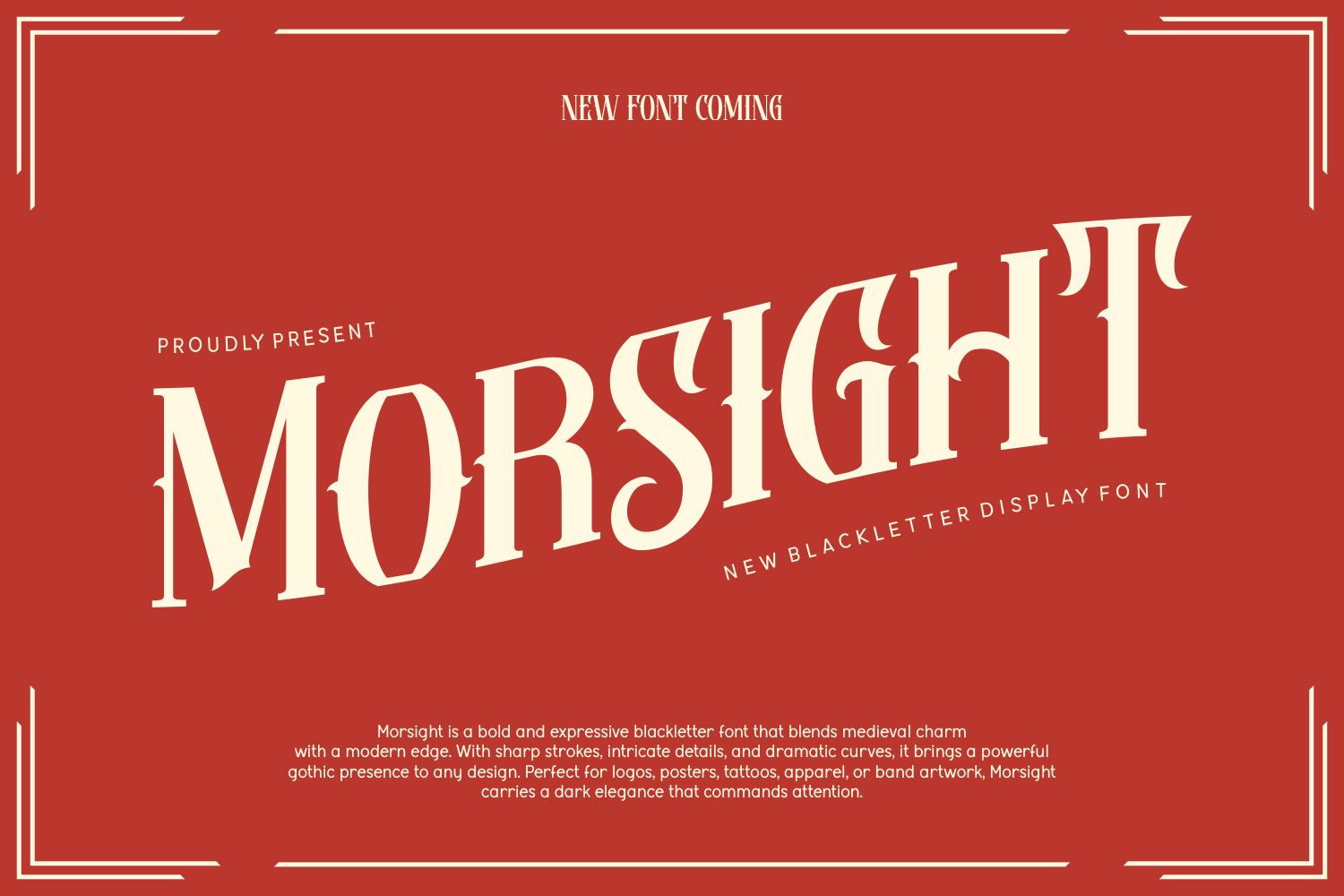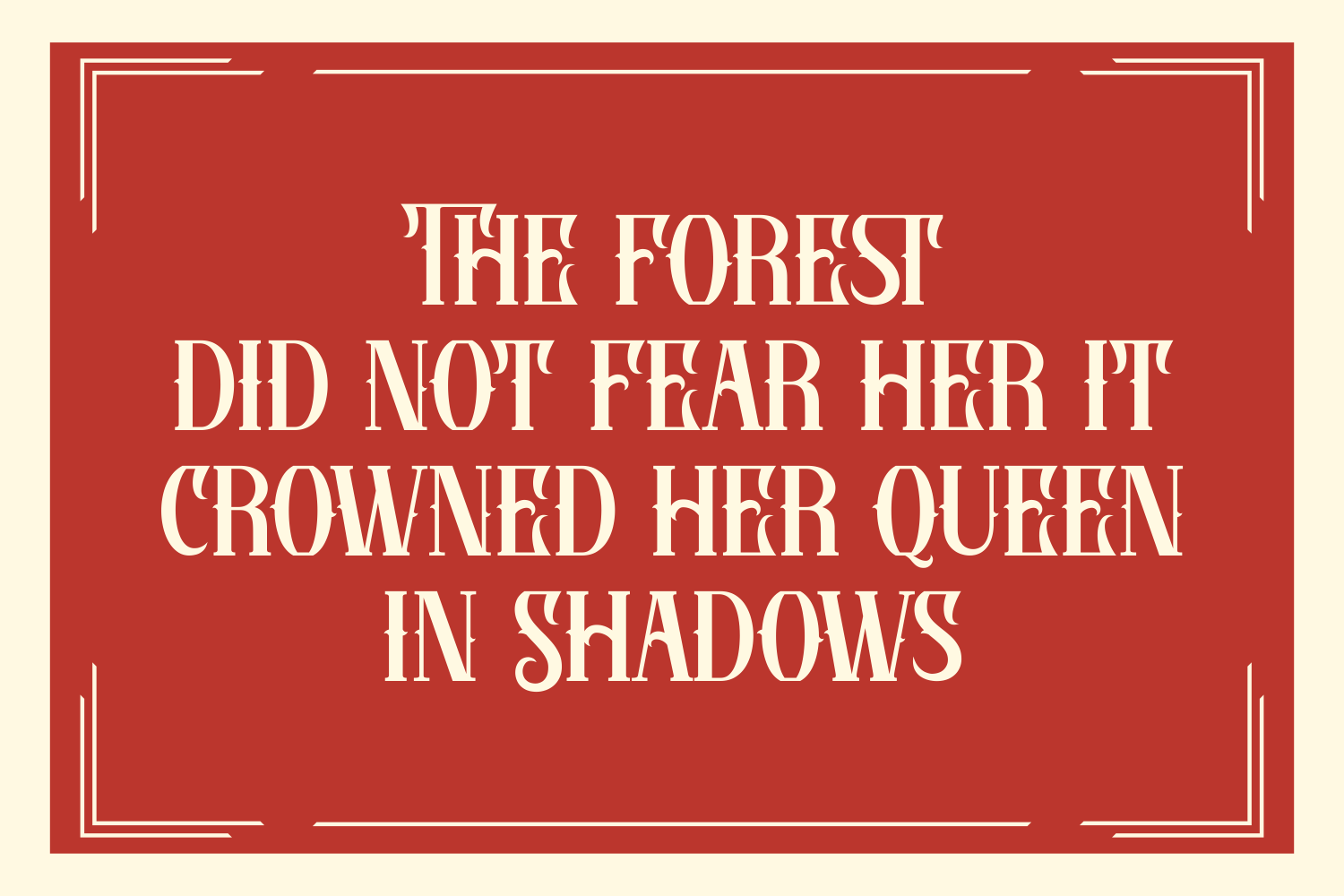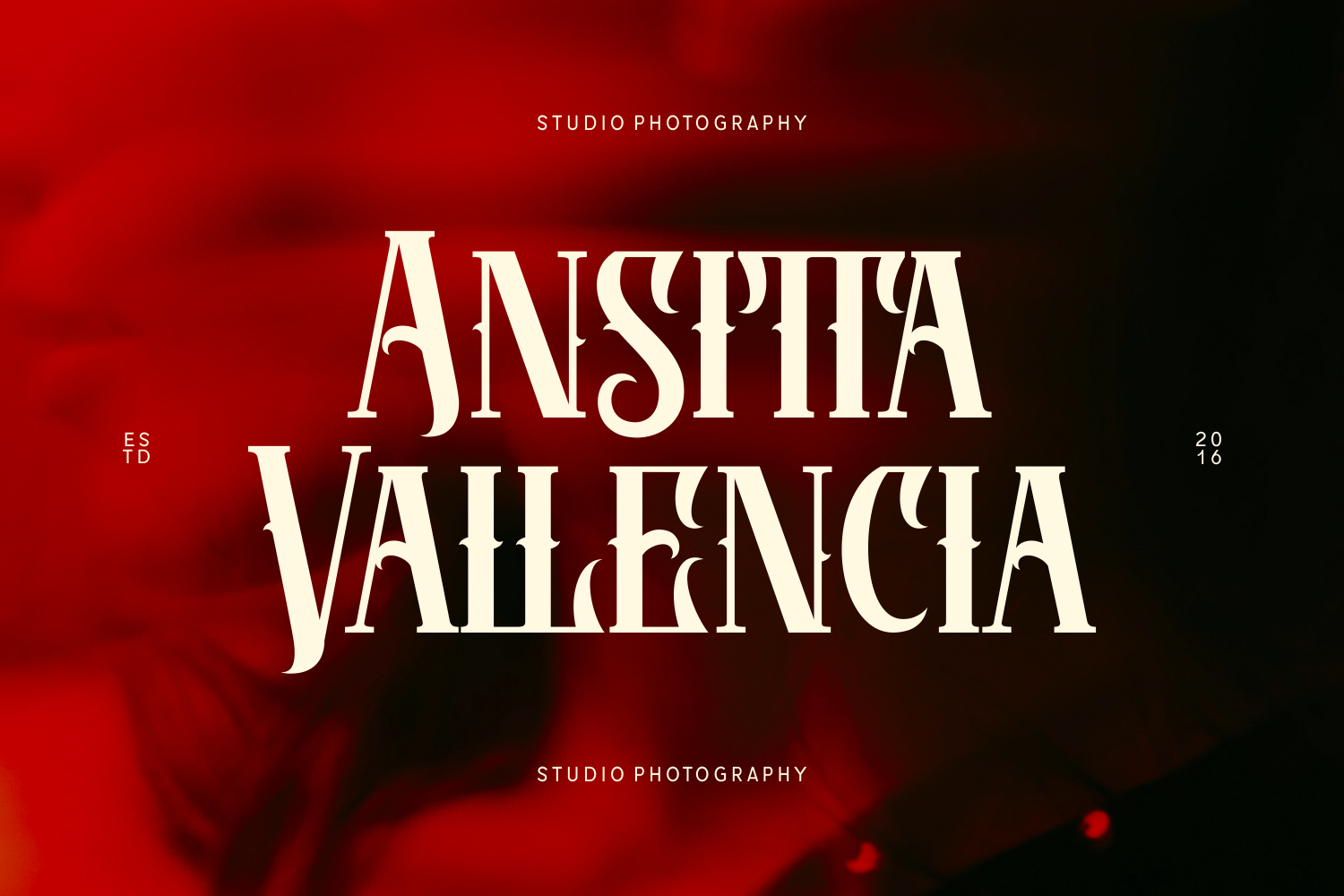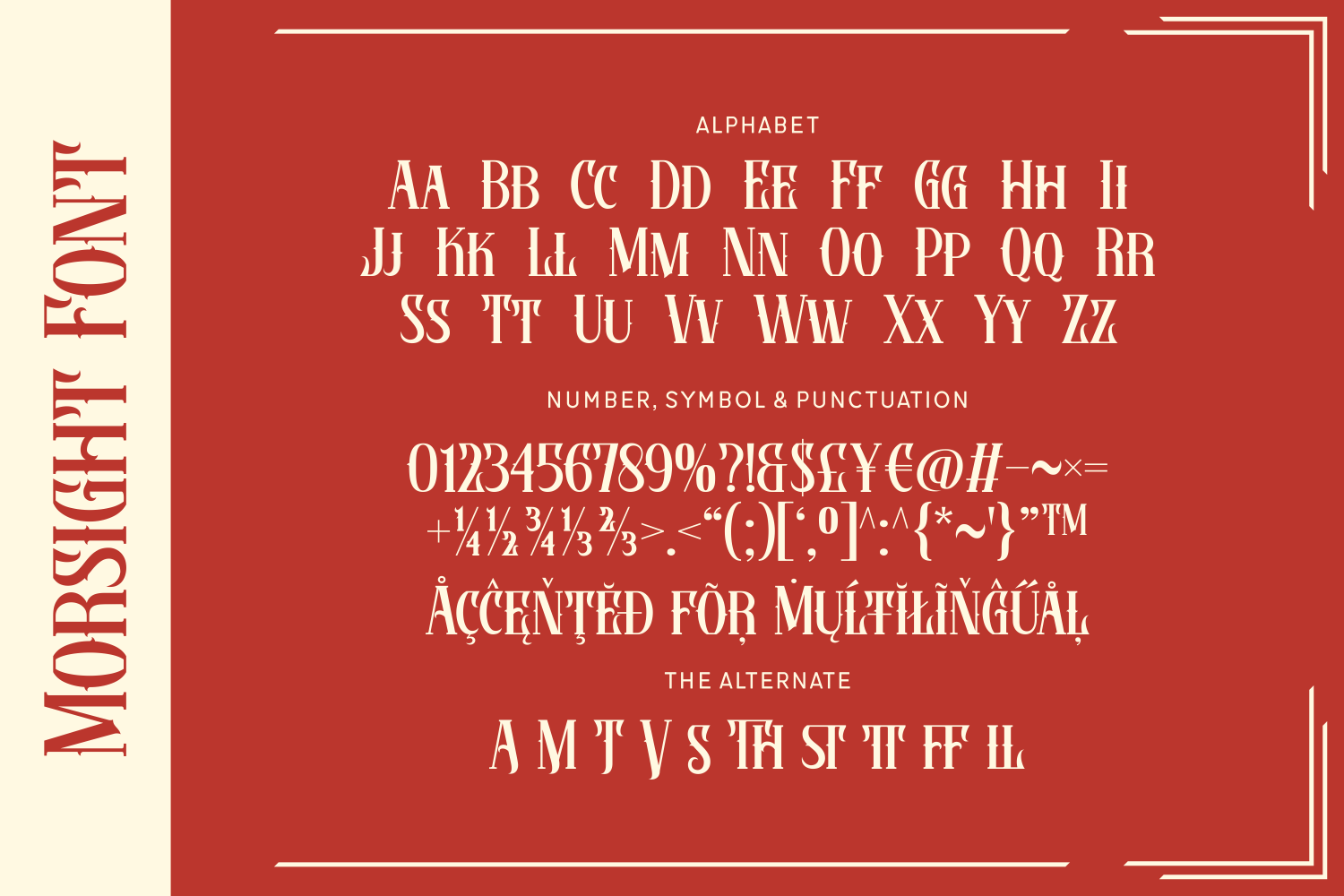
Morsight is an expressive blackletter display font with medieval roots and modern elegance. Great for gothic posters, music branding, and fantasy-themed designs.